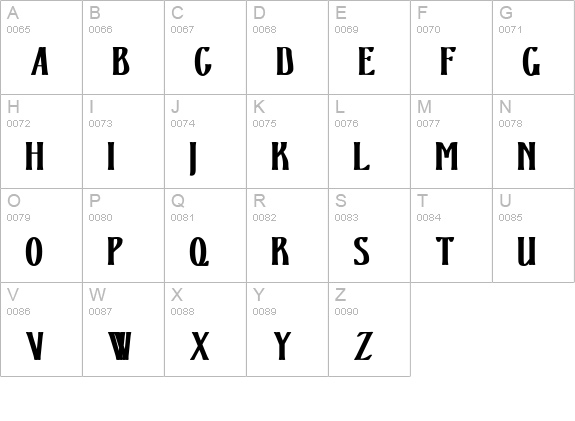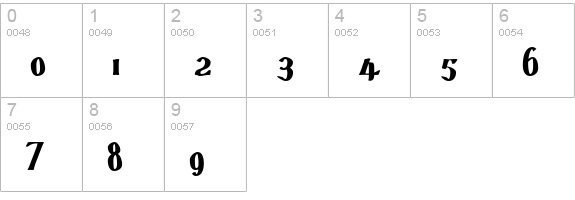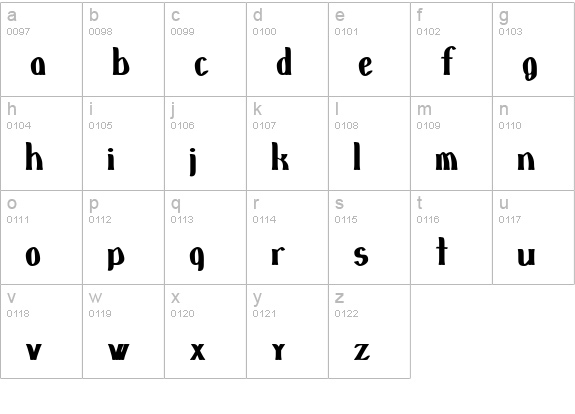
d'SpenserBlack Font Details
d'SpenserBlack font is a bold and eye-catching typeface that exudes elegance and sophistication. With its sleek lines and modern design, this font is perfect for adding a touch of class to any project. Its versatility makes it suitable for a wide range of uses, from branding to editorial design. Best of all, d'SpenserBlack font is available for free download at FontsMarket.com. This means you can easily access this stylish font and use it in your projects without any cost. Don't miss out on the opportunity to enhance your designs with the timeless charm of d'SpenserBlack font, now available for free at FontsMarket.com.